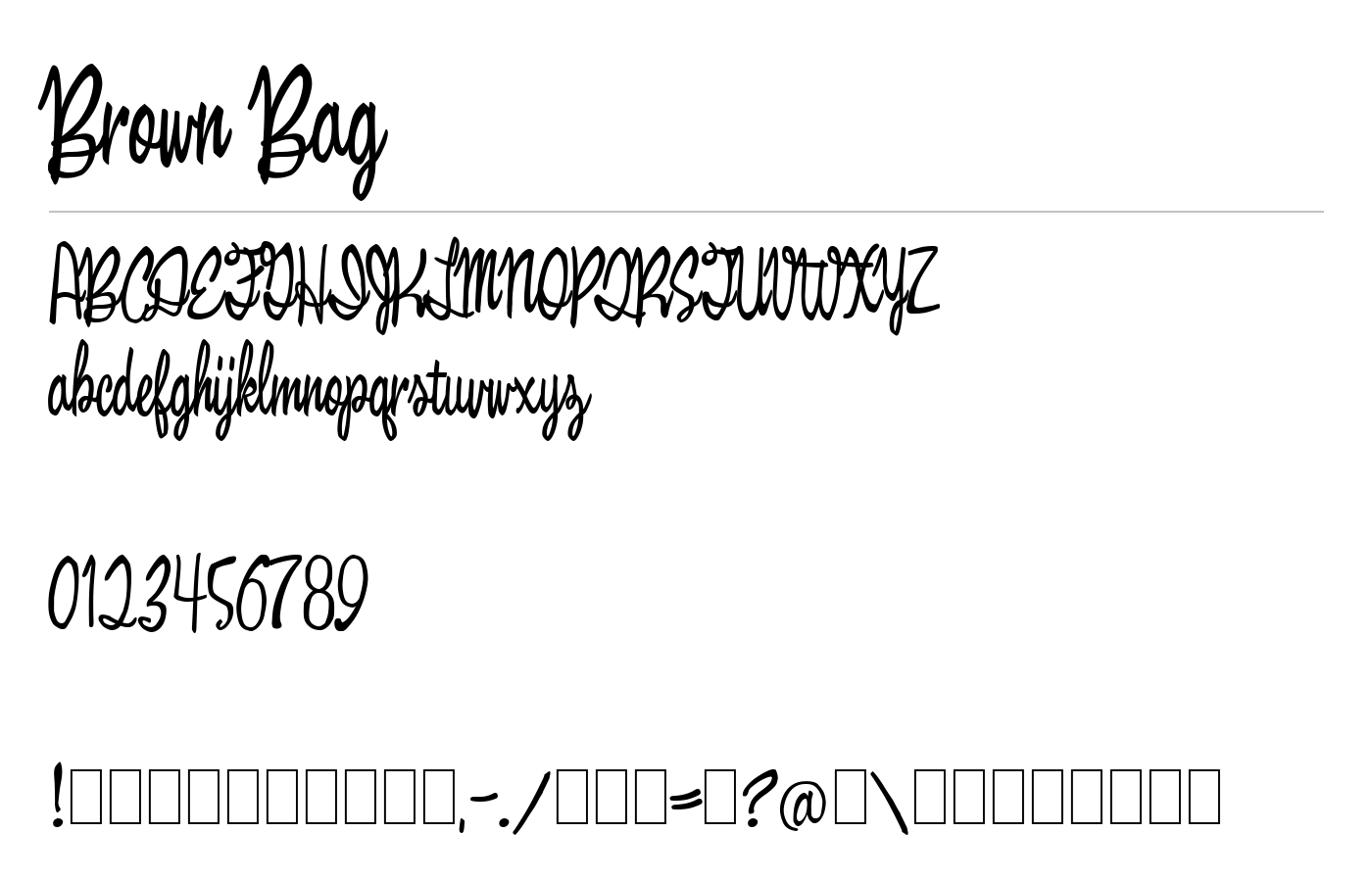
Brown Bag Font is a playful, casual script font with a hand-drawn feel that brings a lively and personal touch to any design. Its tall, narrow letterforms and energetic strokes make it ideal for creative projects, informal branding, and eye-catching headlines where a friendly and approachable vibe is desired. This font works best in contexts that benefit from a handwritten look, such as invitations, posters, and trendy packaging.
Brown Bag Font
About Brown Bag Font